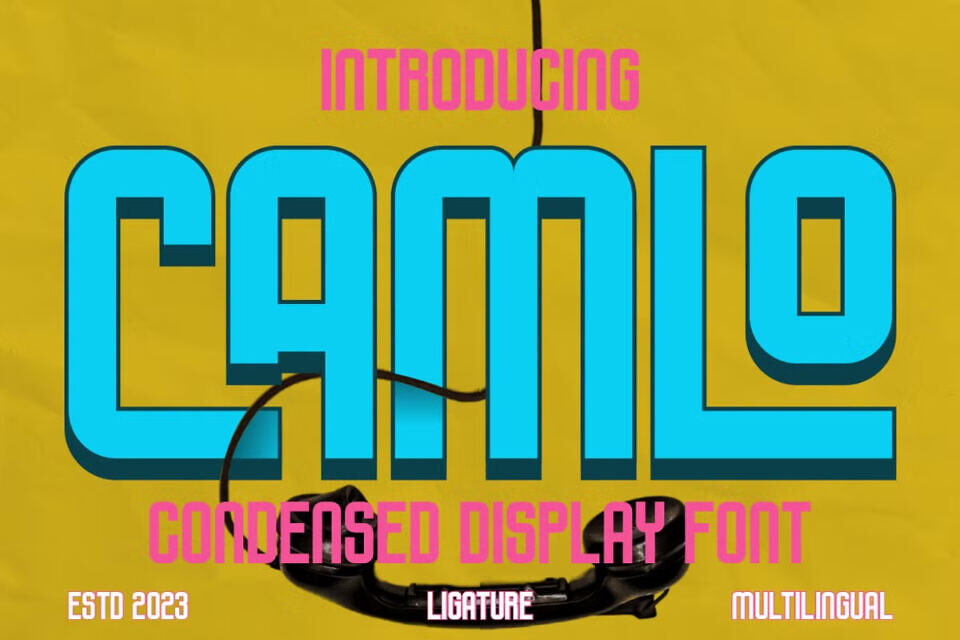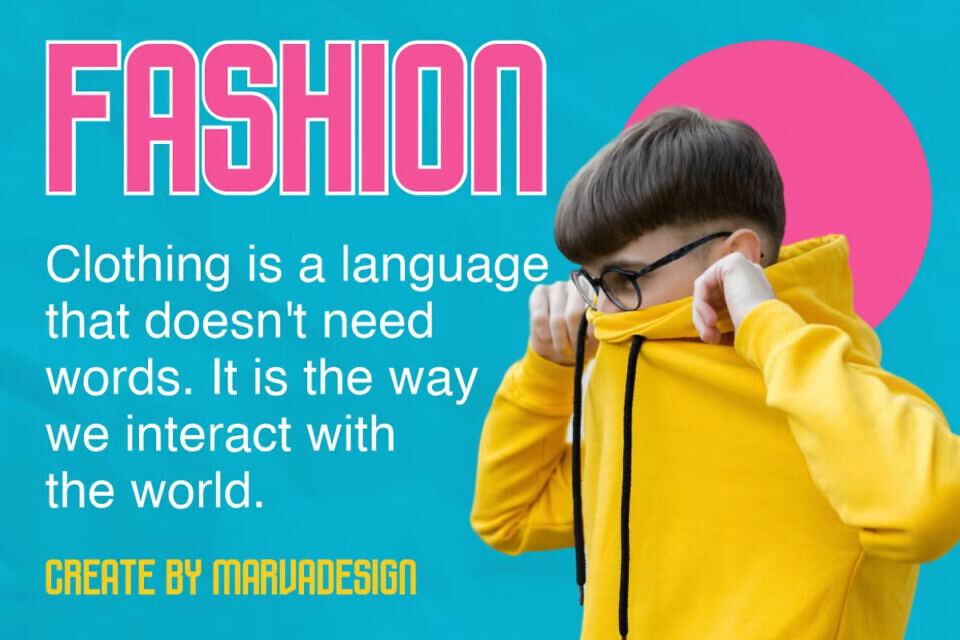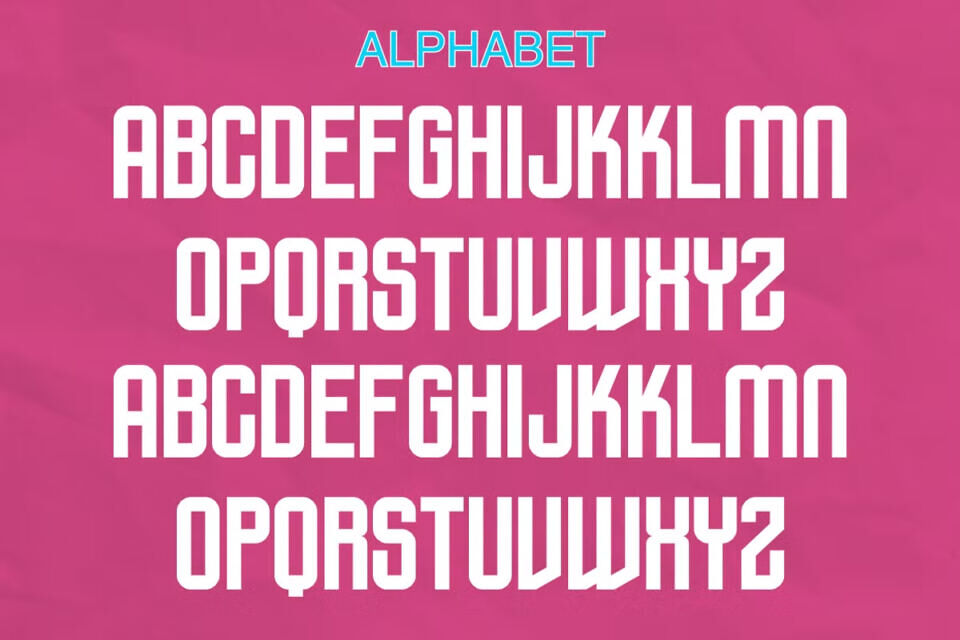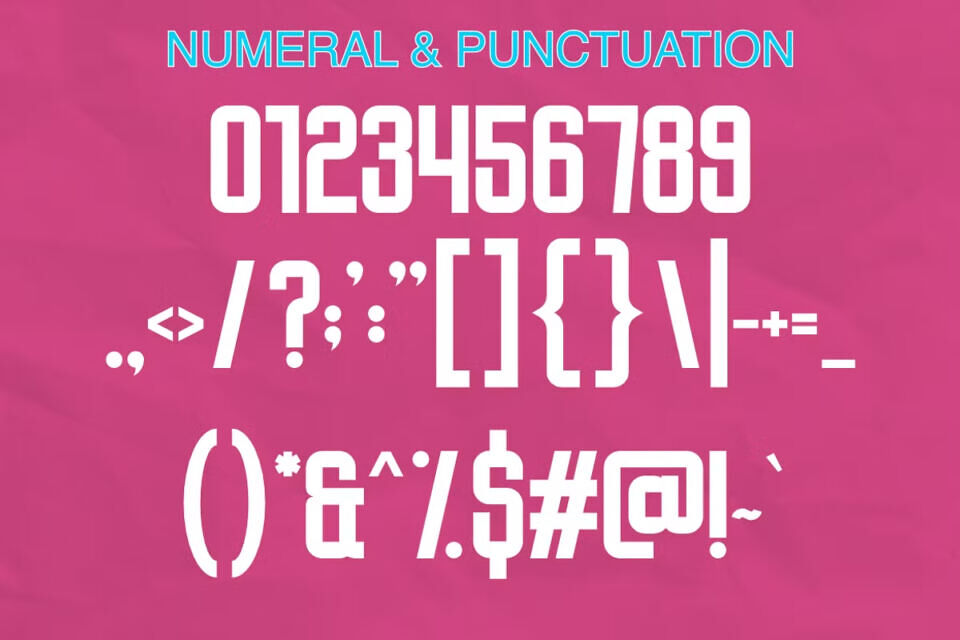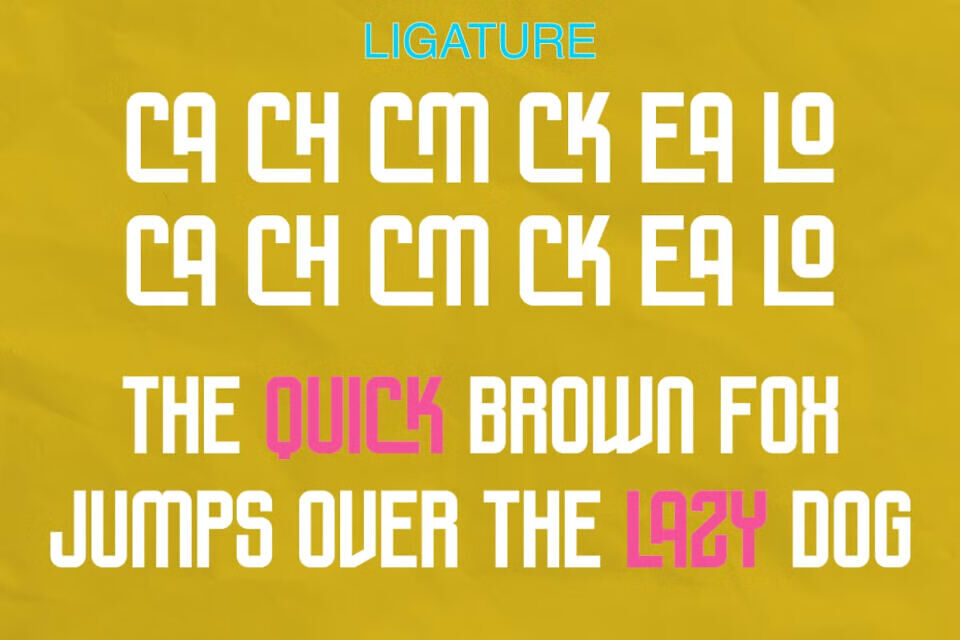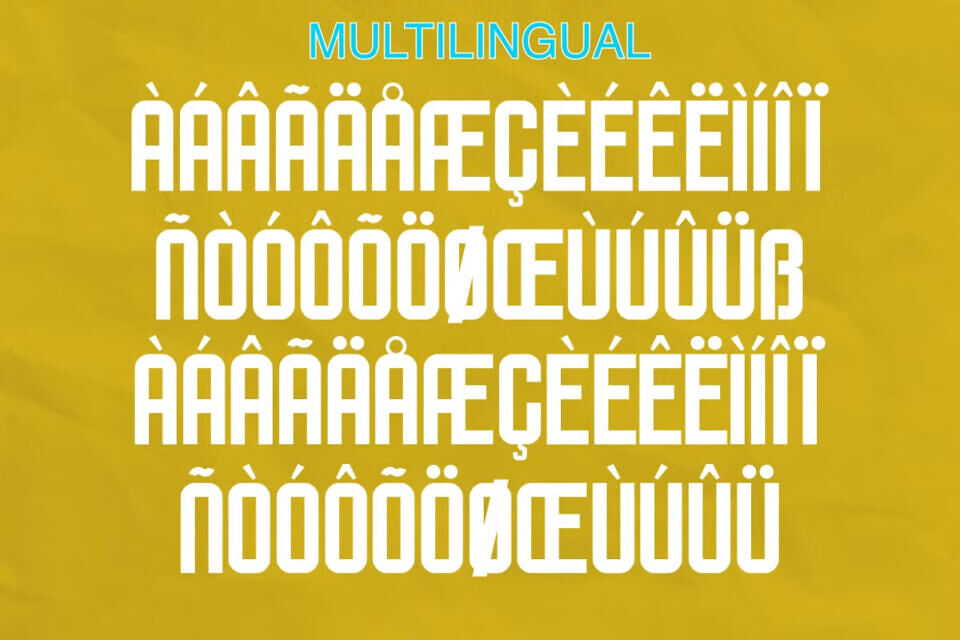
Introducing Camlo, a Modern bold and authentic display font. The font is suitable for any branding project like logo, Template Design, Product and many more. outstanding in a wide range of contexts.